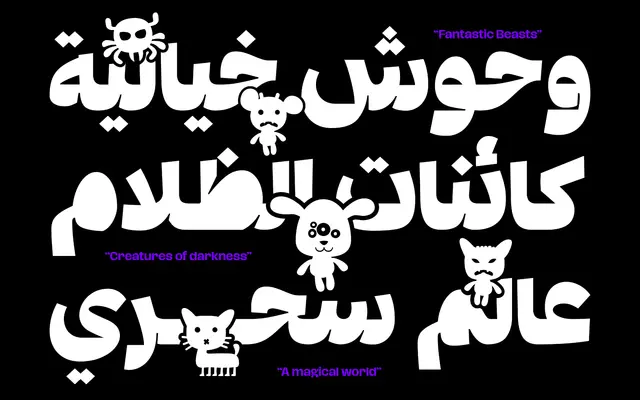
Hagrid Arabic
Zetafonts · Cosimo Lorenzo Pancini, Murad Alshawareb · 2025
A bilingual grotesque family that extends Cosimo Lorenzo Pancini's Hagrid into Arabic script via a Naskh model reinterpreted through brutalist proportions and dynamic inktraps.
Developed in close collaboration with Murad Alshawareb, the family bridges Latin and Arabic with shared structural logic: brutalist counterspaces and inktraps connect the two scripts, while dense Arabic counters fed back into a new Black weight for the Latin. The family splits into Display styles with tighter metrics and stronger contrast, and Text styles tuned for smoother reading, spanning 13 static styles plus two variable fonts covering weight and optical size axes. Coverage extends to Farsi, Urdu, Extended Latin, Cyrillic and Greek across 216 languages.
Hagrid Arabic is a grotesque sans-serif with inverted contrast, brutalist shapes and calligraphic counterspaces; its Arabic component follows a Naskh model reinterpreted through the structural tension of the Latin grotesque.